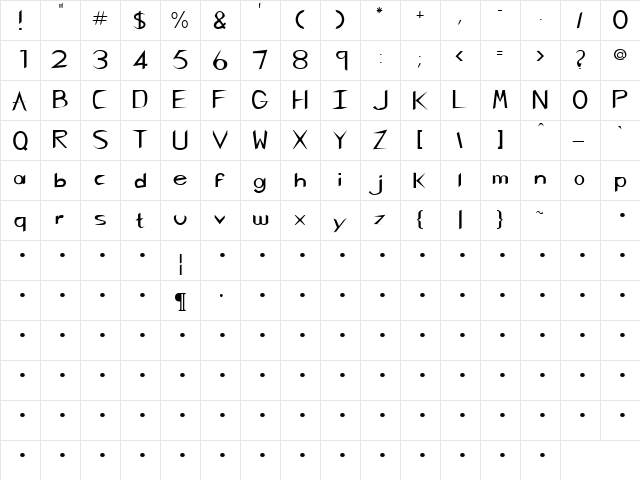
QTKung-Fu Regular
Design Context for QTKung-Fu Typeface
QTKung-Fu is a composed and adaptable typeface that performs quietly and consistently across a wide range of design contexts.